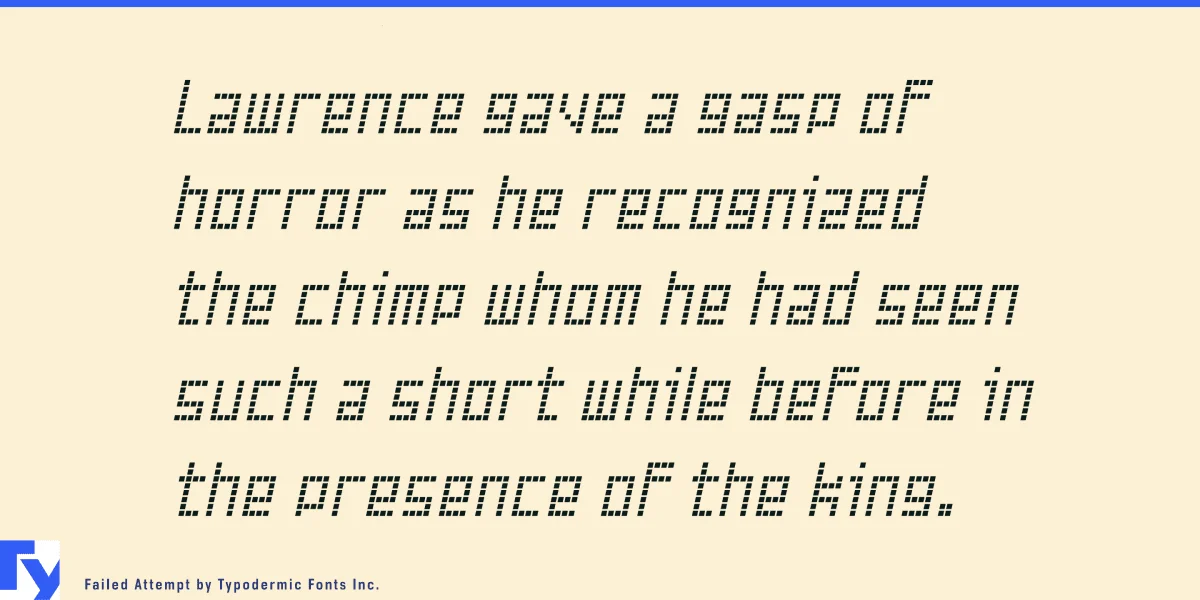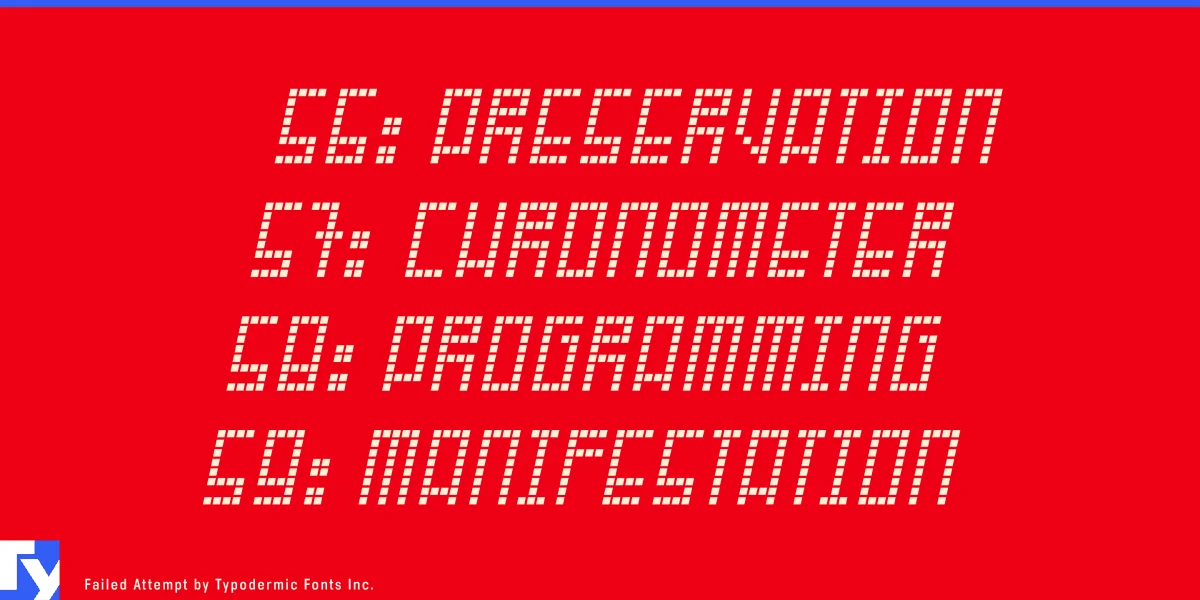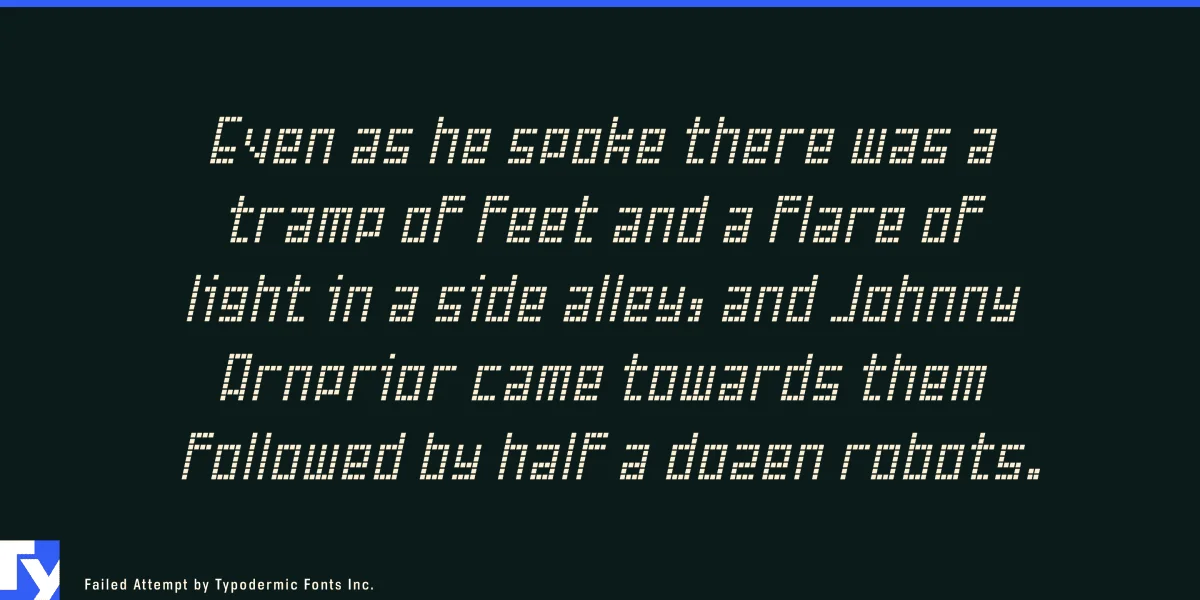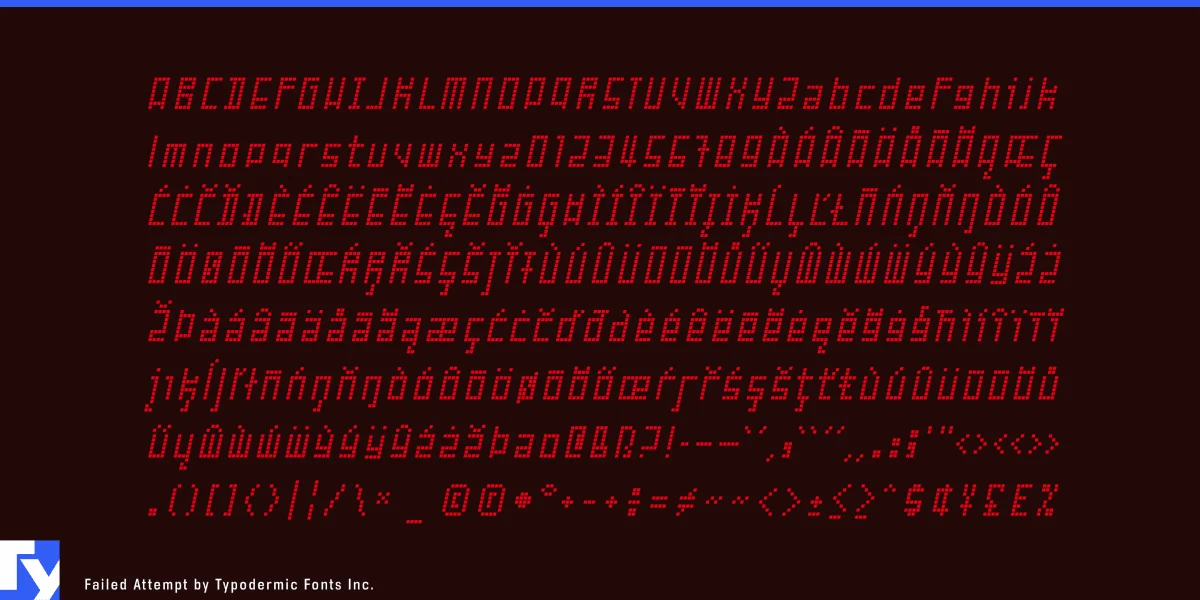
Failed Attempt is a quirky LED/LED display typeface with a spaced-out personality. Its unconventional letterforms will deliver your message with speed and urgency. Most Latin-based European writing systems are supported, including the following languages. Afaan Oromo, Afar, Afrikaans, Albanian, Alsatian, Aromanian, Aymara, Bashkir (Latin), Basque, Belarusian (Latin), Bemba, Bikol, Bosnian, Breton, Cape Verdean, Creole, Catalan, Cebuano, Chamorro, Chavacano, Chichewa, Crimean Tatar (Latin), Croatian, Czech, Danish, Dawan, Dholuo, Dutch, English, Estonian, Faroese, Fijian, Filipino, Finnish, French, Frisian, Friulian, Gagauz (Latin), Galician, Ganda, Genoese, German, Greenlandic, Guadeloupean Creole, Haitian Creole, Hawaiian, Hiligaynon, Hungarian, Icelandic, Ilocano, Indonesian, Irish, Italian, Jamaican, Kaqchikel, Karakalpak (Latin), Kashubian, Kikongo, Kinyarwanda, Kirundi, Kurdish (Latin), Latvian, Lithuanian, Lombard, Low Saxon, Luxembourgish, Maasai, Makhuwa, Malay, Maltese, Māori, Moldovan, Montenegrin, Ndebele, Neapolitan, Norwegian, Novial, Occitan, Ossetian (Latin), Papiamento, Piedmontese, Polish, Portuguese, Quechua, Rarotongan, Romanian, Romansh, Sami, Sango, Saramaccan, Sardinian, Scottish Gaelic, Serbian (Latin), Shona, Sicilian, Silesian, Slovak, Slovenian, Somali, Sorbian, Sotho, Spanish, Swahili, Swazi, Swedish, Tagalog, Tahitian, Tetum, Tongan, Tshiluba, Tsonga, Tswana, Tumbuka, Turkish, Turkmen (Latin), Tuvaluan, Uzbek (Latin), Venetian, Vepsian, Võro, Walloon, Waray-Waray, Wayuu, Welsh, Wolof, Xhosa, Yapese, Zapotec Zulu and Zuni.